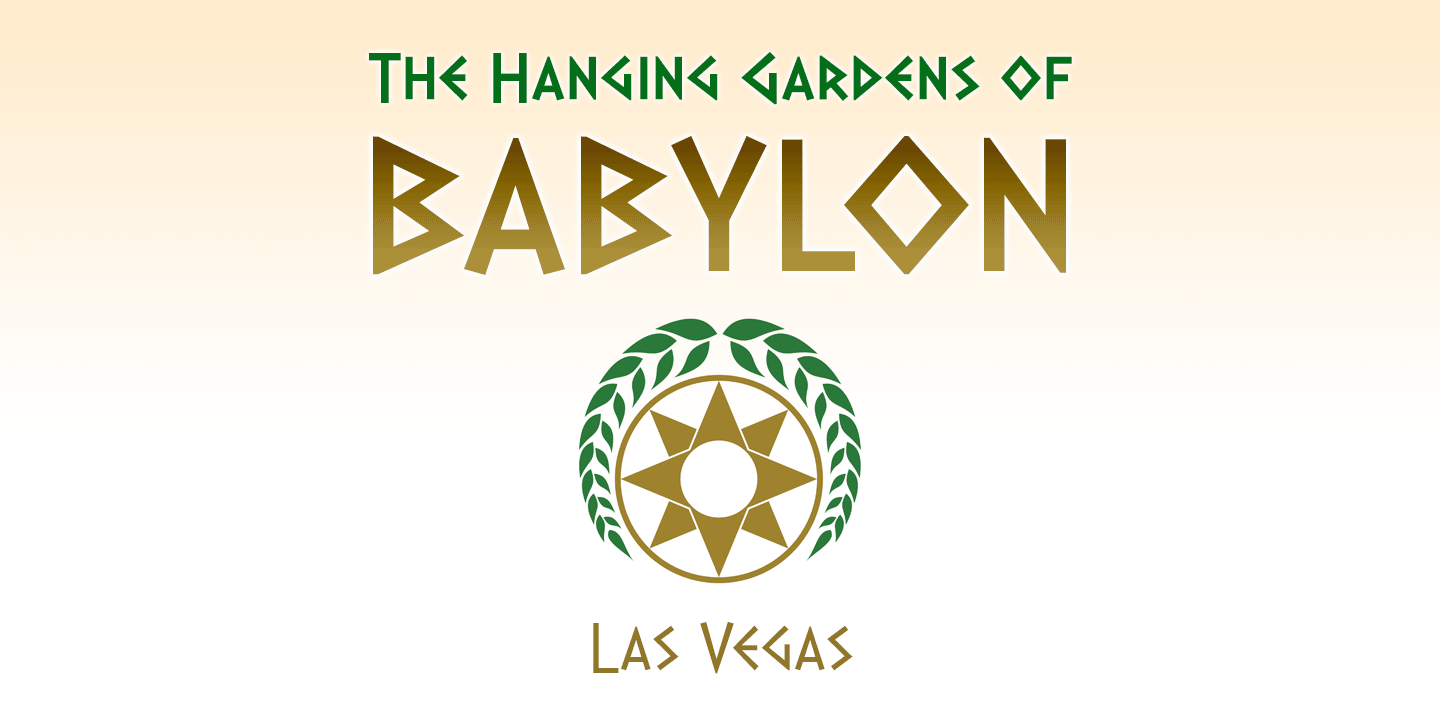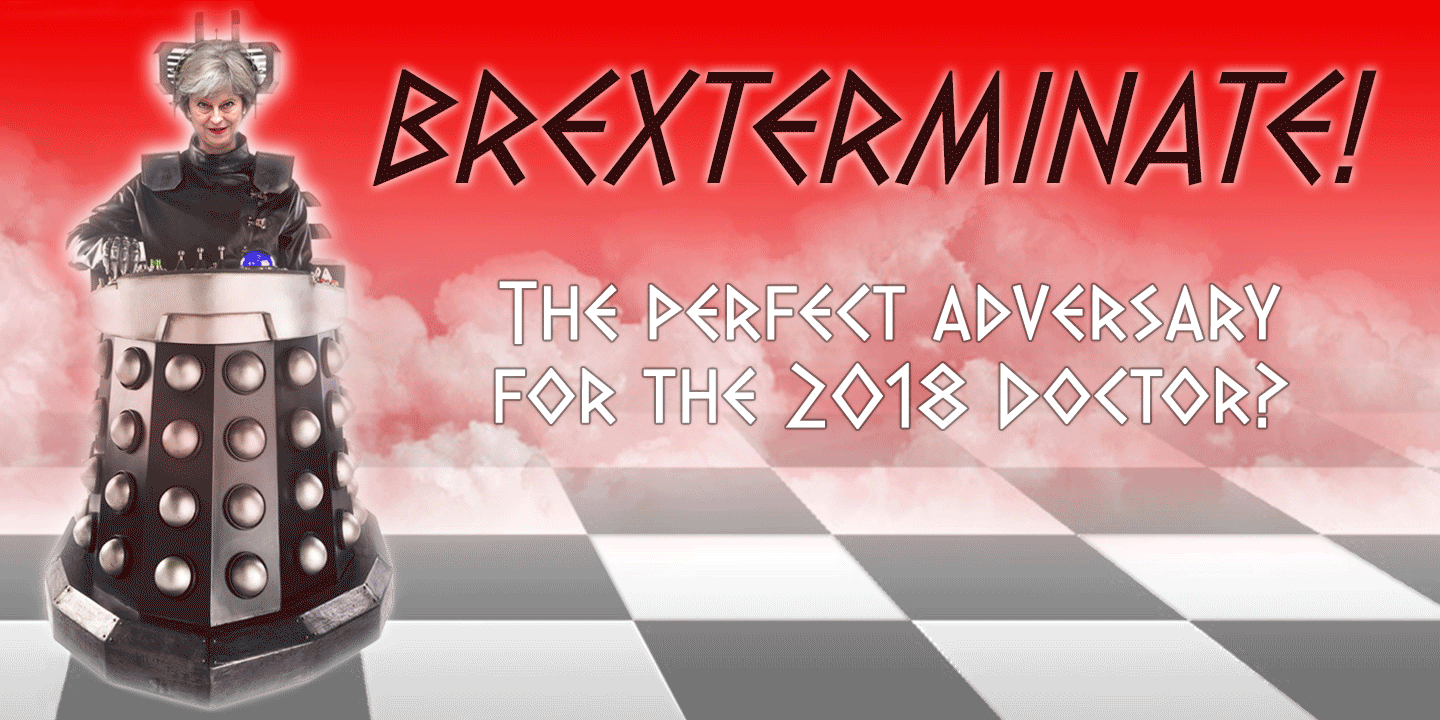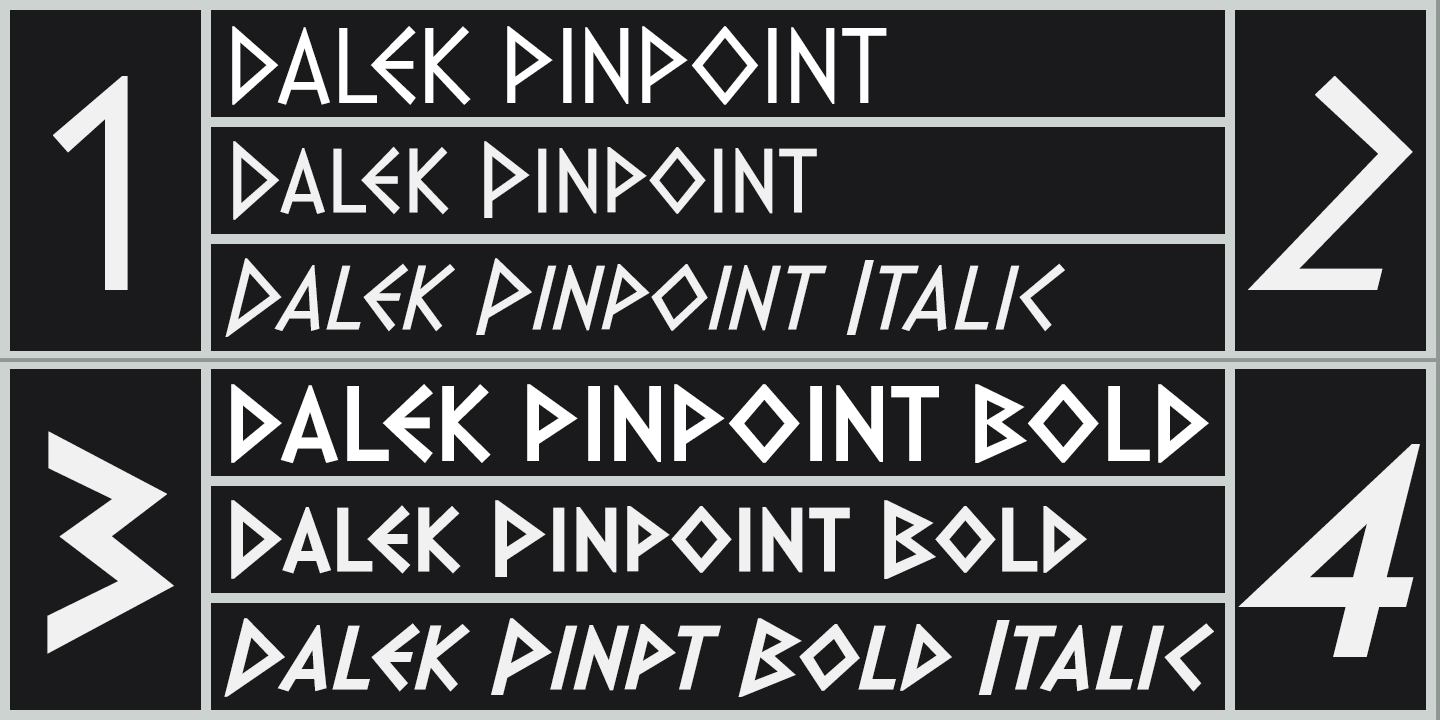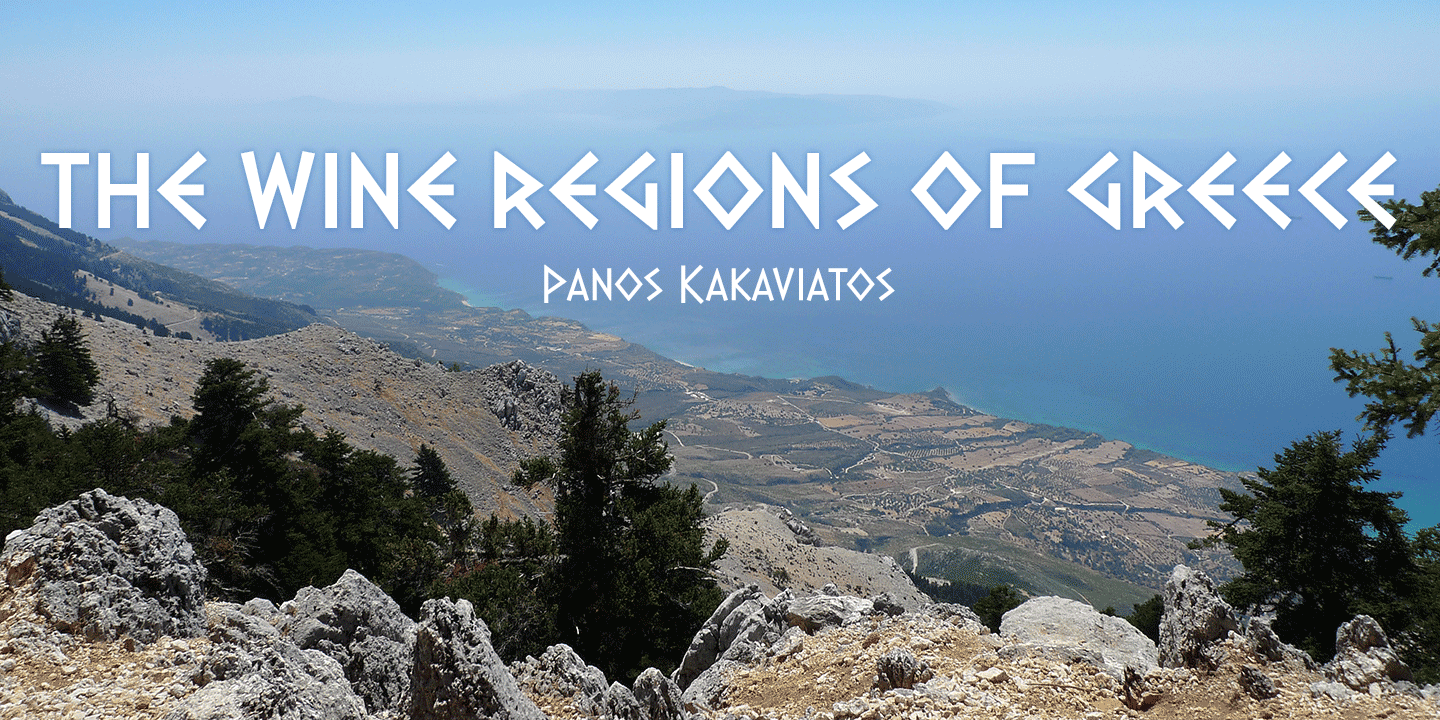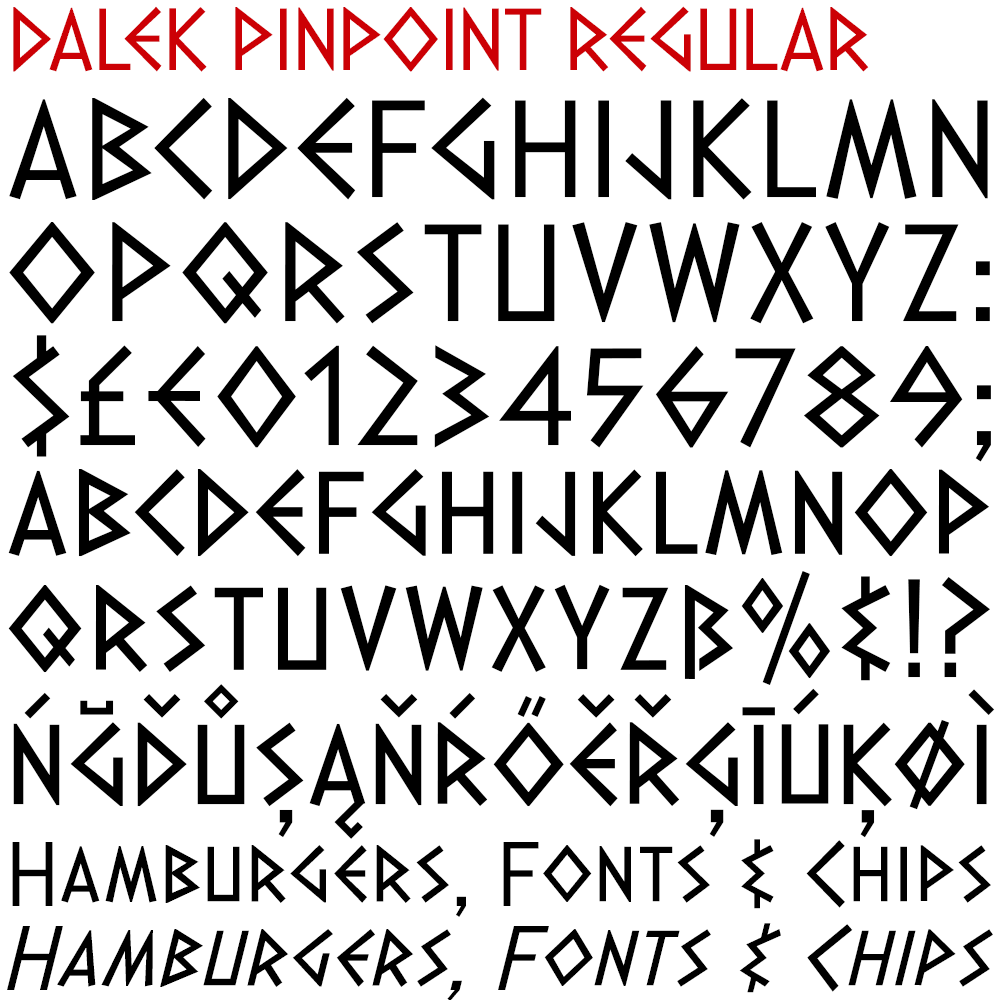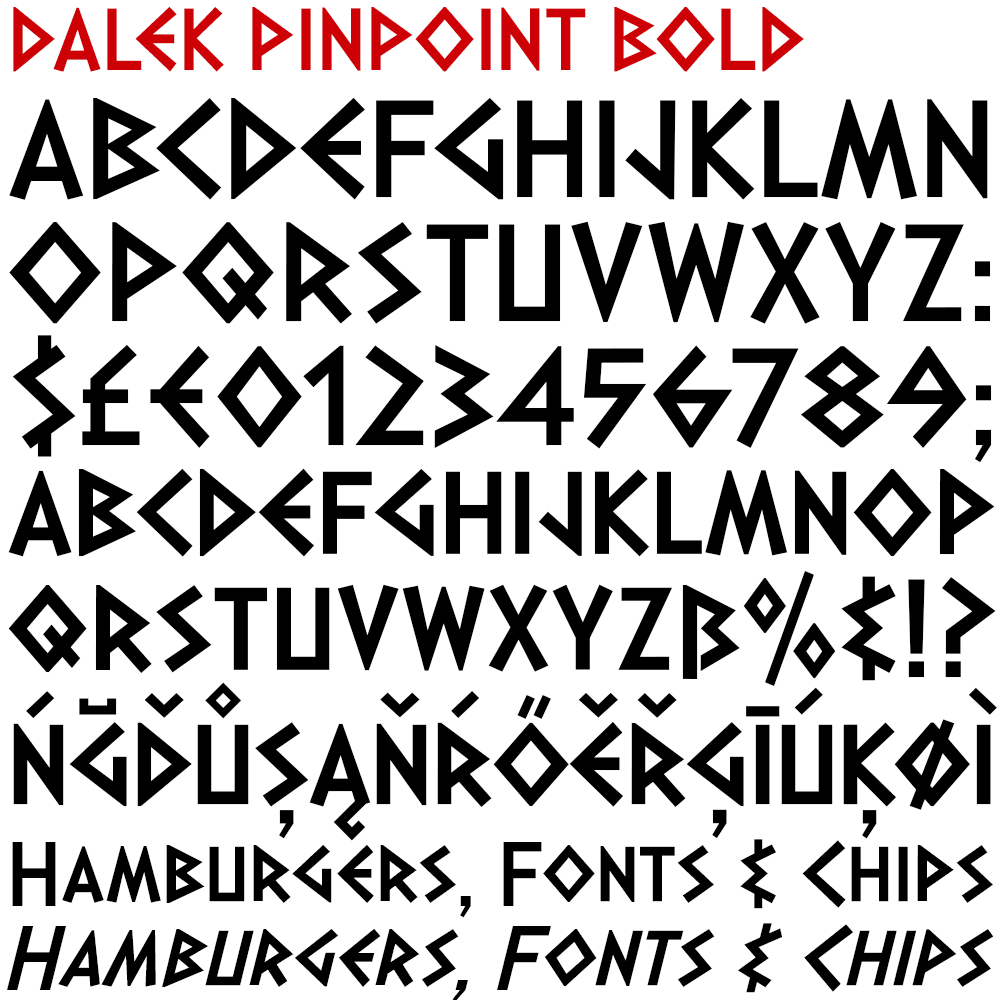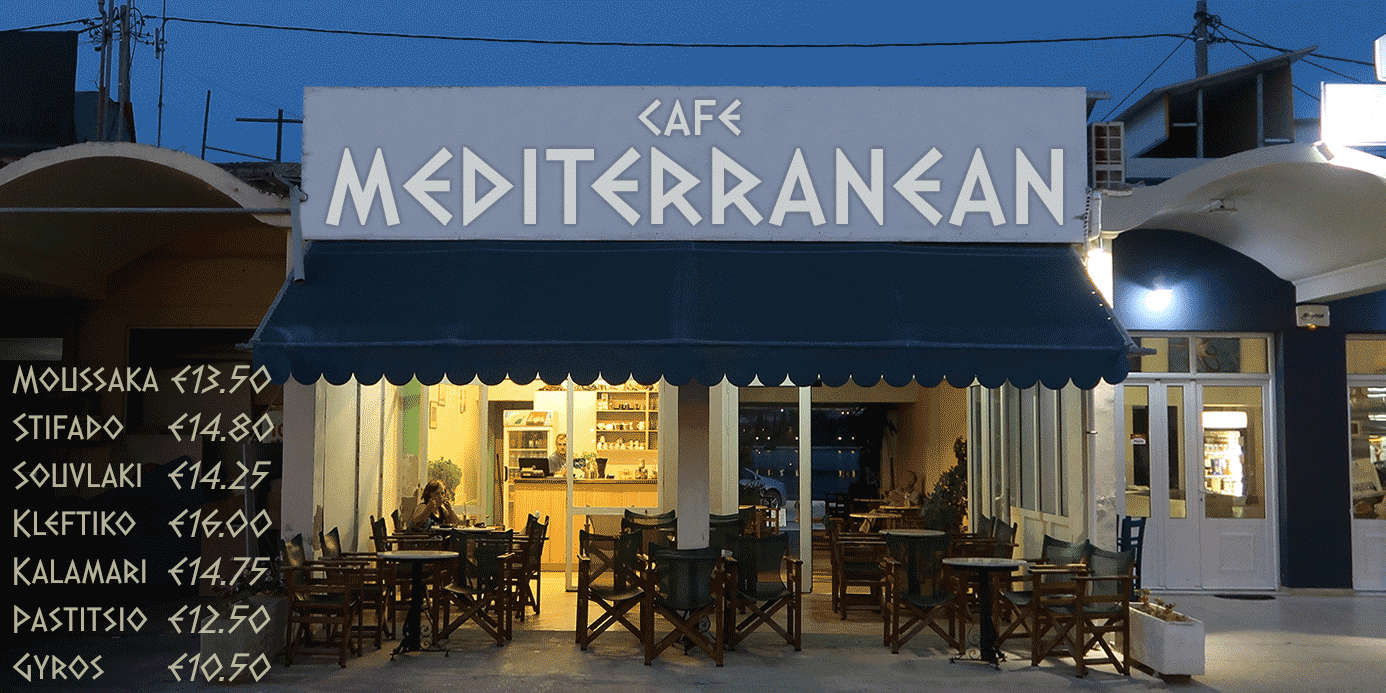
Dalek Pinpoint
Dalek Pinpoint is a clean and precise version of K-Type’s distressed Dalek typeface, a small caps face with overtones of Greek, Phoenician and Runic alphabets, based on Dalek comic book lettering from the 1960s.